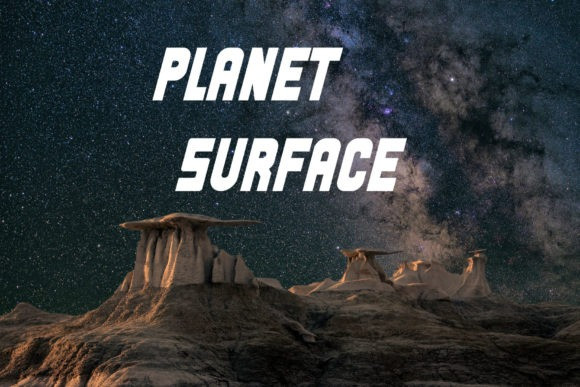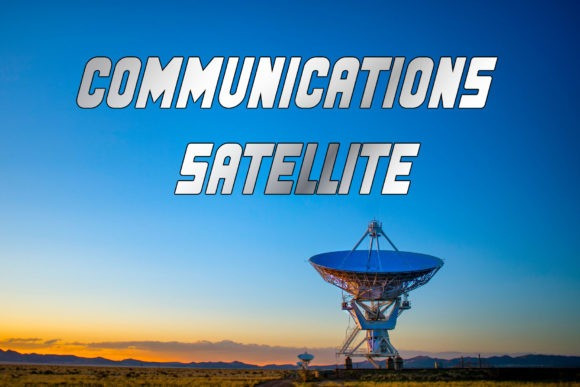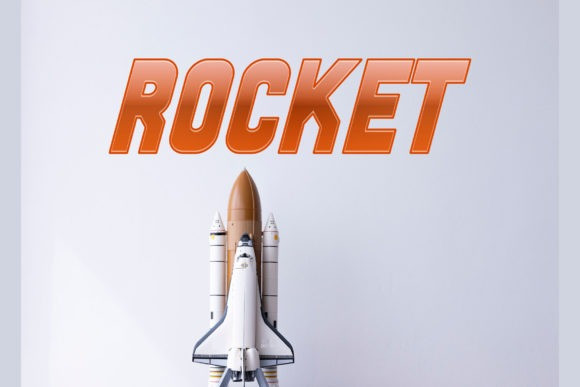
Rocket Font
Rocket Font is a cool, bold and assertive display font. Add it to any design that is related to speed, power or both. You will be amazed by the results.